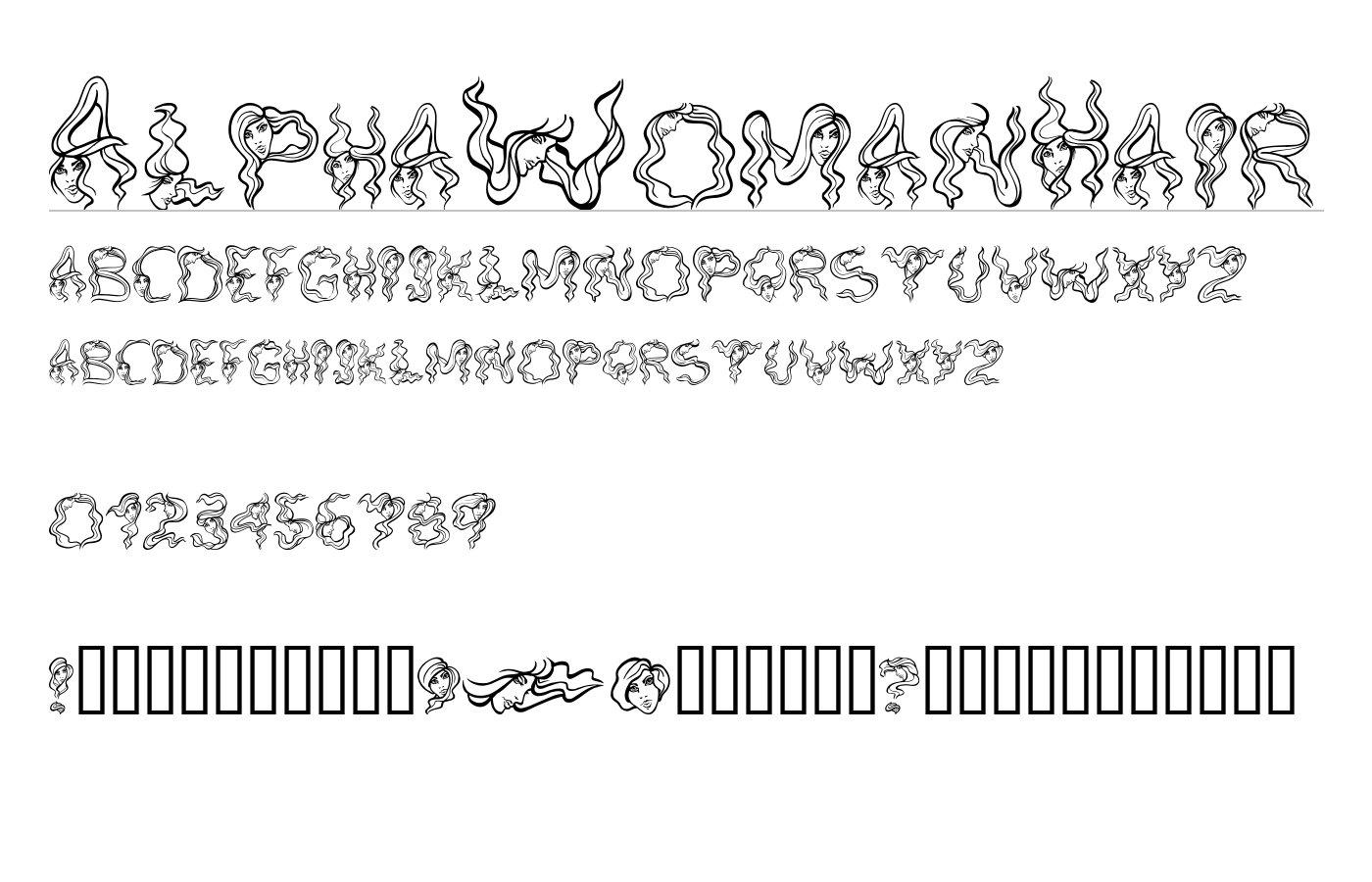
AlphaWomanHair is a highly decorative, artistic display font featuring intricate letterforms made up of flowing, wavy lines that form women’s faces and hair. This unique typeface combines a whimsical, feminine style with a delicate, hand-drawn feel, making it perfect for creative designs that want to convey elegance and individuality. Due to its detailed and ornamental nature, it works best for logos, headlines, or branding projects in fashion, beauty, or artistic industries where a strong, eye-catching visual identity is desired.
AlphaWomanHair Font
About AlphaWomanHair Font